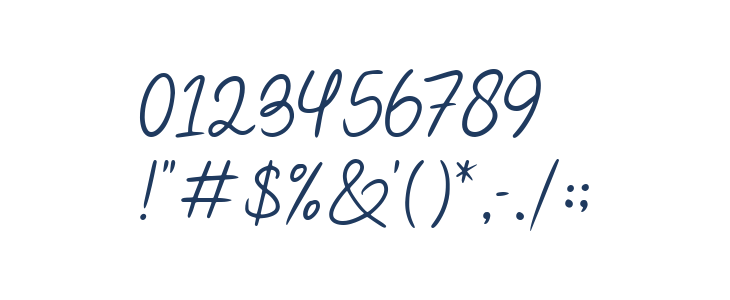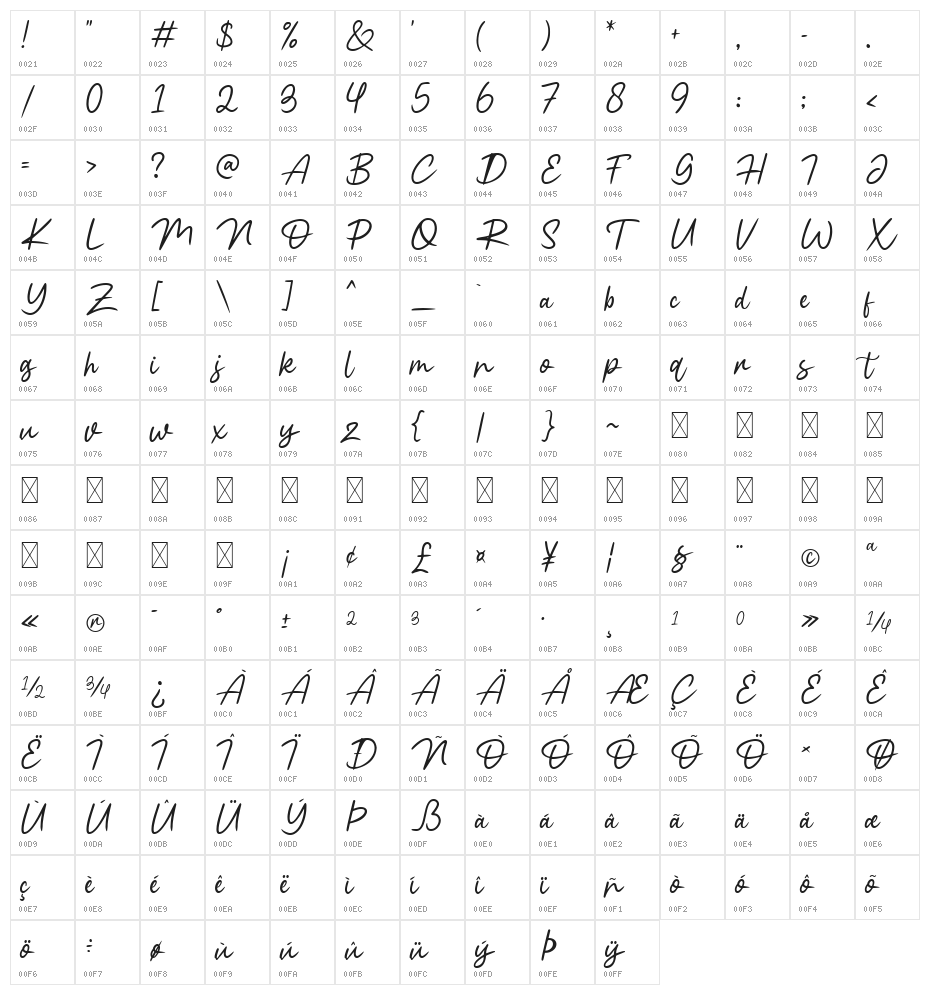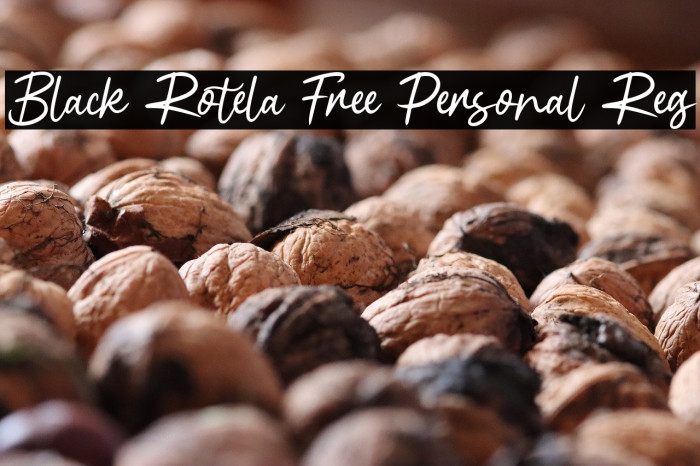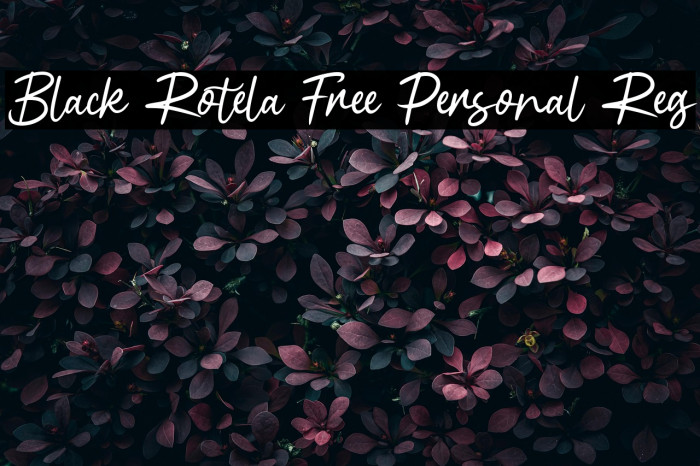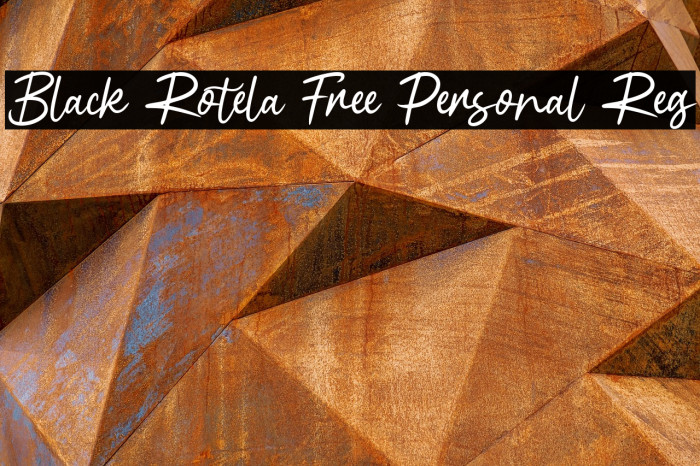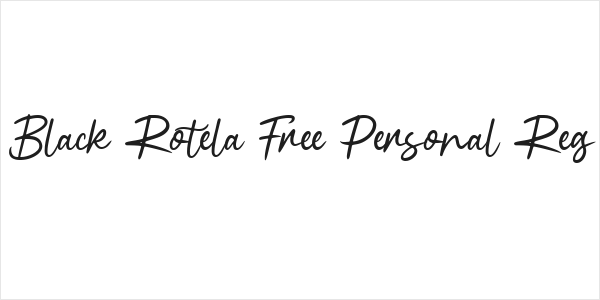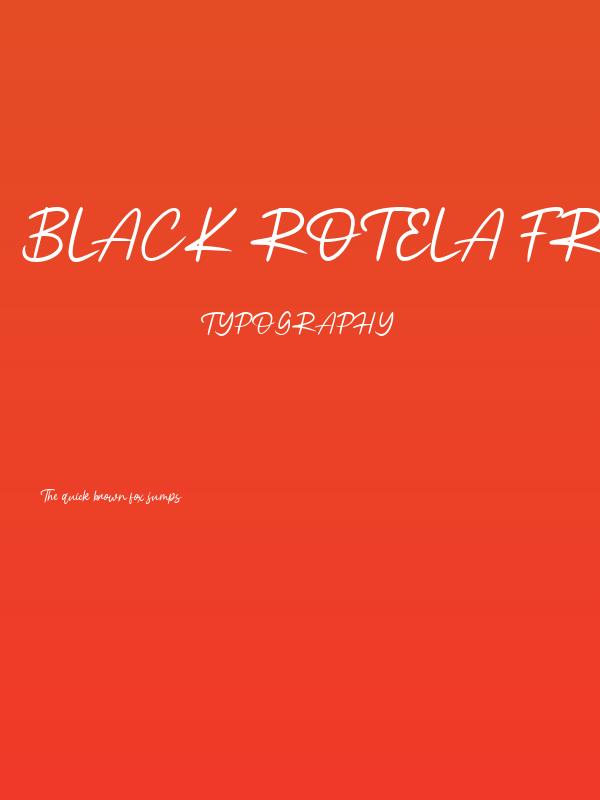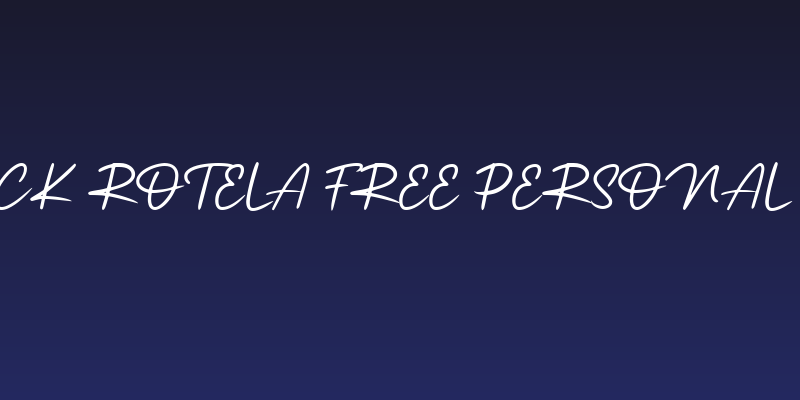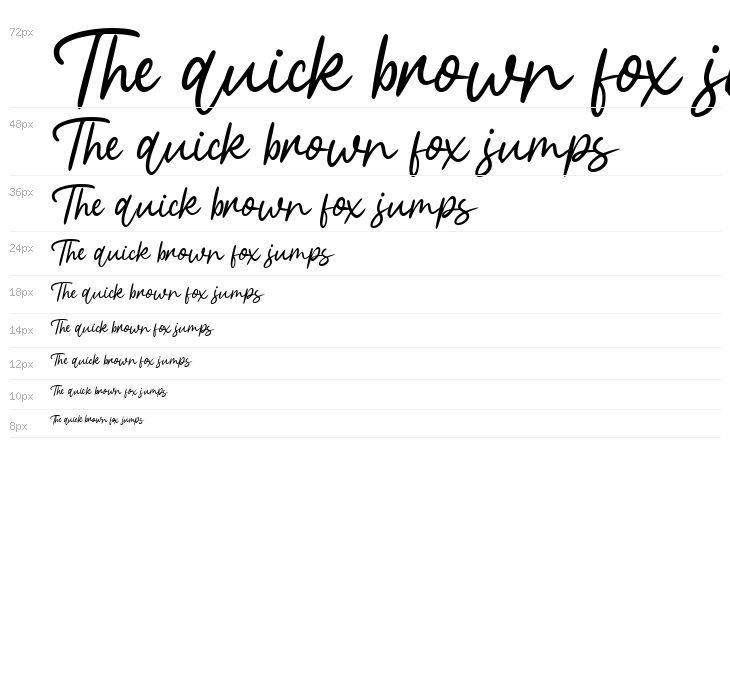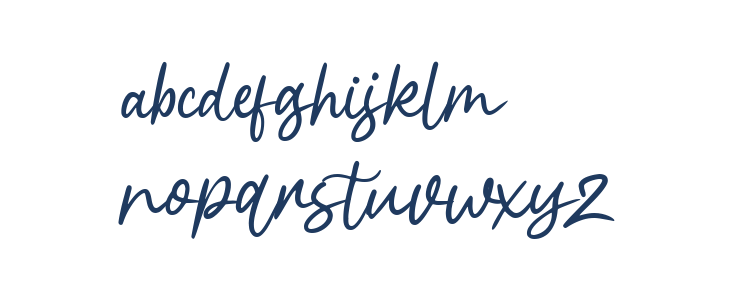
Black Rotela Free Personal Reg Font
Black Rotela Free Personal Reg Description
This font features a dynamic and fluid handwritten style, characterized by its smooth, flowing curves and slightly slanted letters. The uppercase letters are bold and expressive, while the lowercase letters maintain a consistent rhythm and balance. The numerals are clear and legible, matching the overall aesthetic of the font. Special characters are included, maintaining the same lively and energetic feel. This font exudes a sense of casual elegance, making it suitable for a variety of creative applications.
| Overall Style | Casual, Elegant |
| Proposed Projects | Ideal for greeting cards, invitations, branding projects, and social media graphics. |